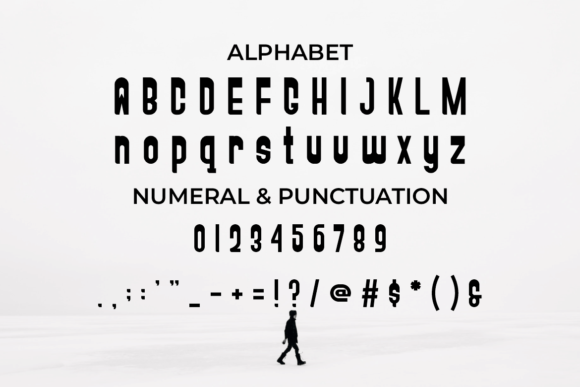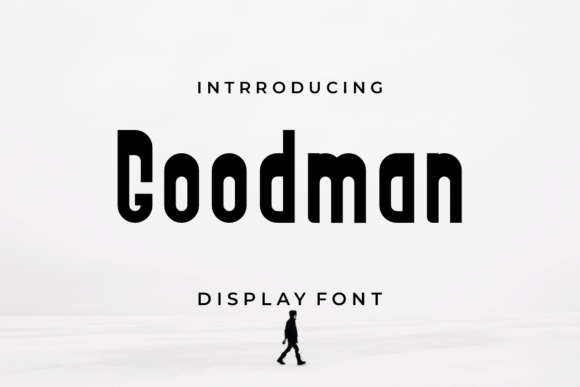
Introducing Goodman Font: The Fresh and Unique Display Font You Need
Are you tired of using the same old fonts in your designs? Do you want to add a touch of freshness and uniqueness to your creations? Look no further than Goodman Font, a friendly and casual display font that’s sure to elevate your designs to the next level. In this article, we’ll take a closer look at Goodman Font, its features, and how it can benefit designers and crafters alike.
What is Goodman Font?
Goodman Font is a modern display font that’s designed to make a statement. With its clean lines, rounded edges, and friendly demeanor, this font is perfect for adding a touch of personality to your designs. Whether you’re working on a logo, brochure, or social media post, Goodman Font is sure to grab attention and leave a lasting impression.
Key Features of Goodman Font
So, what makes Goodman Font so special? Here are some of its key features:
- Unique and Fresh Design: Goodman Font boasts a unique and fresh design that’s unlike anything you’ve seen before. Its clean lines and rounded edges give it a friendly and approachable feel that’s perfect for designs that need a personal touch.
- Casual and Friendly: This font has a casual and friendly vibe that’s perfect for designs that need to connect with the audience on a personal level. Whether you’re working on a brand identity or a social media post, Goodman Font is sure to help you build a rapport with your audience.
- Highly Versatile: Goodman Font is highly versatile and can be used in a variety of designs, from logos and brochures to social media posts and website headers.
- Easy to Read: Despite its unique design, Goodman Font is easy to read, even at smaller font sizes. This makes it perfect for designs that need to convey information in a clear and concise manner.
Benefits of Using Goodman Font
So, why should you use Goodman Font in your designs? Here are some benefits:
- Adds Personality to Your Designs: Goodman Font adds a touch of personality to your designs, making them stand out from the crowd.
- Enhances Brand Identity: With its unique design, Goodman Font can help enhance your brand identity and make your brand more memorable.
- Increases Engagement: The friendly and casual vibe of Goodman Font can help increase engagement with your audience, making them more likely to interact with your designs.
- Perfect for Creative Projects: Goodman Font is perfect for creative projects, such as craft fairs, DIY tutorials, and artistic endeavors.
How to Use Goodman Font
Using Goodman Font is easy. Here are some tips:
- Use it as a Display Font: Goodman Font is designed to be used as a display font, so use it to grab attention and make a statement.
- Pair it with Other Fonts: Experiment with pairing Goodman Font with other fonts to create a unique and visually appealing design.
- Adjust Font Size and Color: Adjust the font size and color to suit your design needs. Goodman Font looks great in bold colors and large font sizes.
In conclusion, Goodman Font is a fresh and unique display font that’s perfect for designers and crafters looking to add a touch of personality to their creations. With its clean lines, rounded edges, and friendly demeanor, this font is sure to enhance any design and make it stand out from the crowd. So, why not give Goodman Font a try and see how it can elevate your designs to the next level?